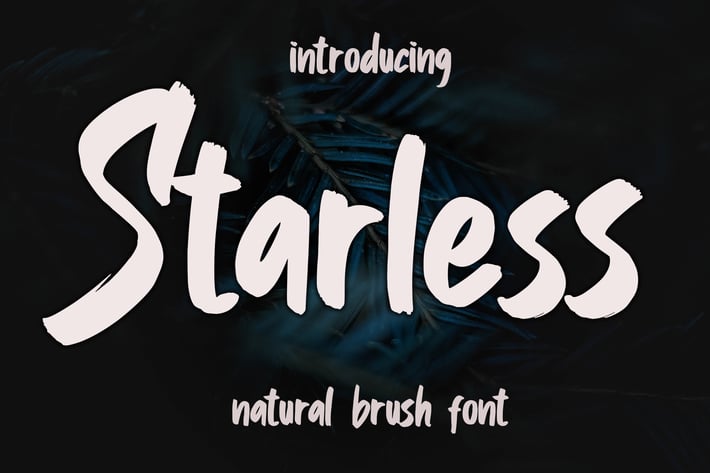
Starless Brush Font
Starless is a natural handmade textured brush font with an irregular base line. Suitable for use in title design. Such as clothes, covers, book titles, films, quotes, branding, logos, greeting cards, t-shirts, packaging designs, posters, and others. Starless includes a complete set of upper and lower case letters, as well as multi-language support, numbers, punctuation, binders.
Ligature\
Basic Latin Language Support (AÀÁÂÃÄÅCÇDÐEÈÉÊËIÌÍÎÏÑOØÒÓÔÕÖUÙÜÚÛWYÝŸÆß )